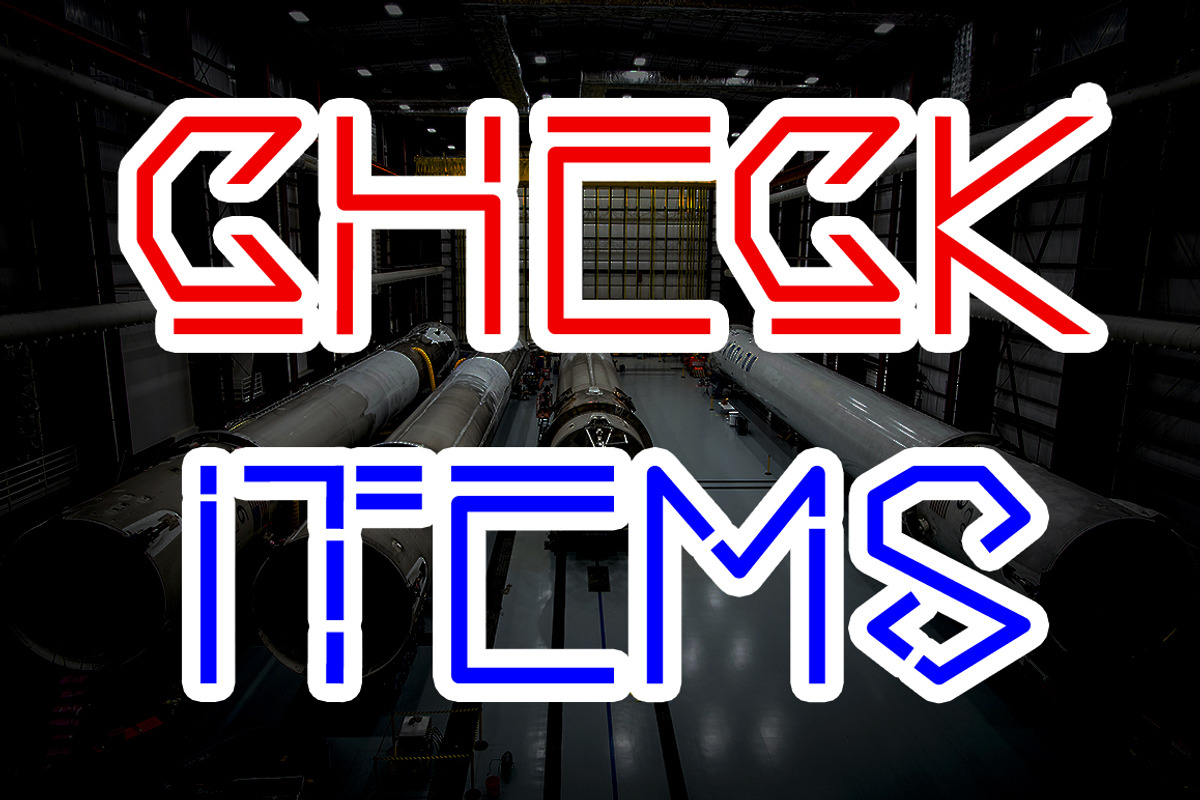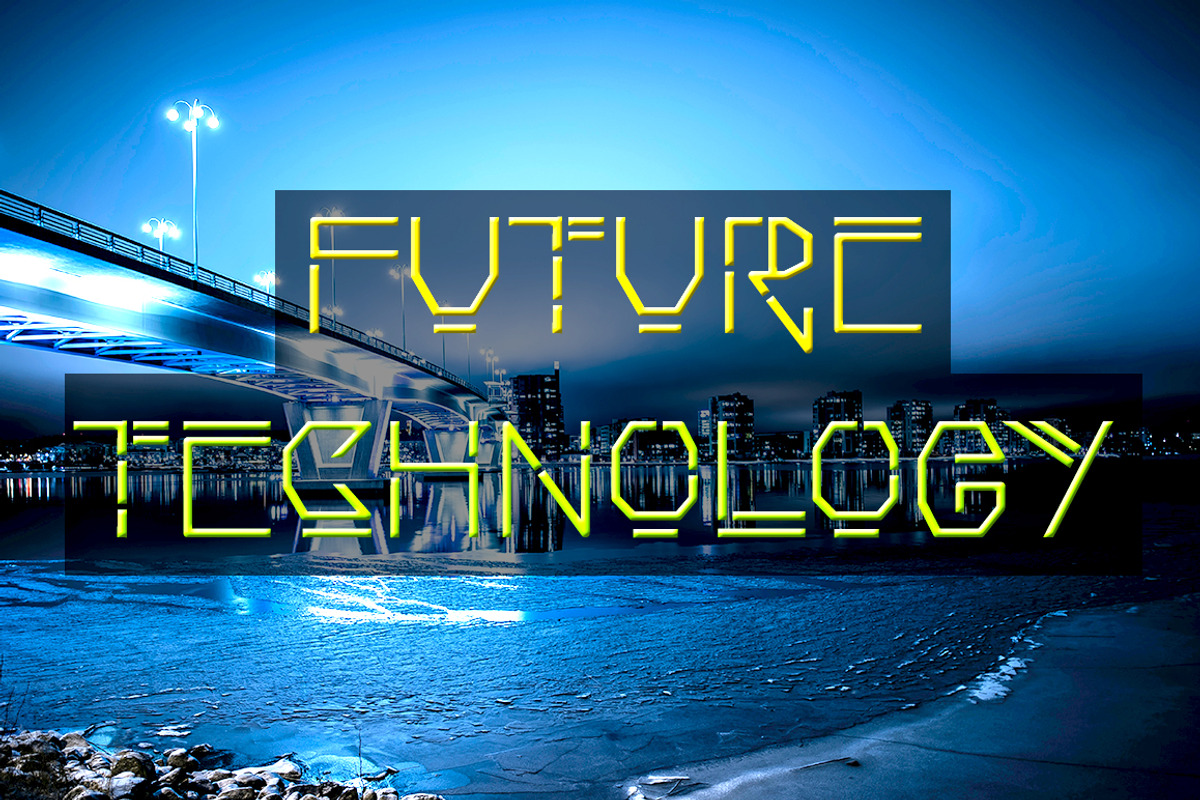
Rocket Font – Futuristic Font
Launch your designs into the future with Rocket Font – a bold, futuristic display typeface built for speed, style, and digital impact. Inspired by space-age aesthetics and modern tech, Rocket Font combines sleek geometry with playful energy, making it the perfect fit for creators who want their message to stand out.
Whether you're designing a comic book cover, YouTube thumbnail, Instagram post, or branding for a cutting-edge company, Rocket Font adds that extra blast of personality and precision. Its dynamic form makes it ideal for entertainment, television, games, and product packaging—wherever bold visuals are key.
Cartoon & comic book titles
YouTube and Twitch overlays
Instagram, Facebook & Twitter graphics
Company logos & tech startups
Television intros & lower-thirds
Entertainment branding & game design
Posters, product labels, and more
Characters: Full A–Z uppercase & lowercase, numbers, punctuation
Futuristic Style – Inspired by rockets, sci-fi, and digital interfaces
Eye-Catching Display – Designed to grab attention in titles and thumbnails
High Versatility – Equally great for media, branding, and digital content
Optimized for Screens – Sharp performance on all devices and platforms
Rocket Font is not just a typeface—it’s a launchpad for your next big idea.